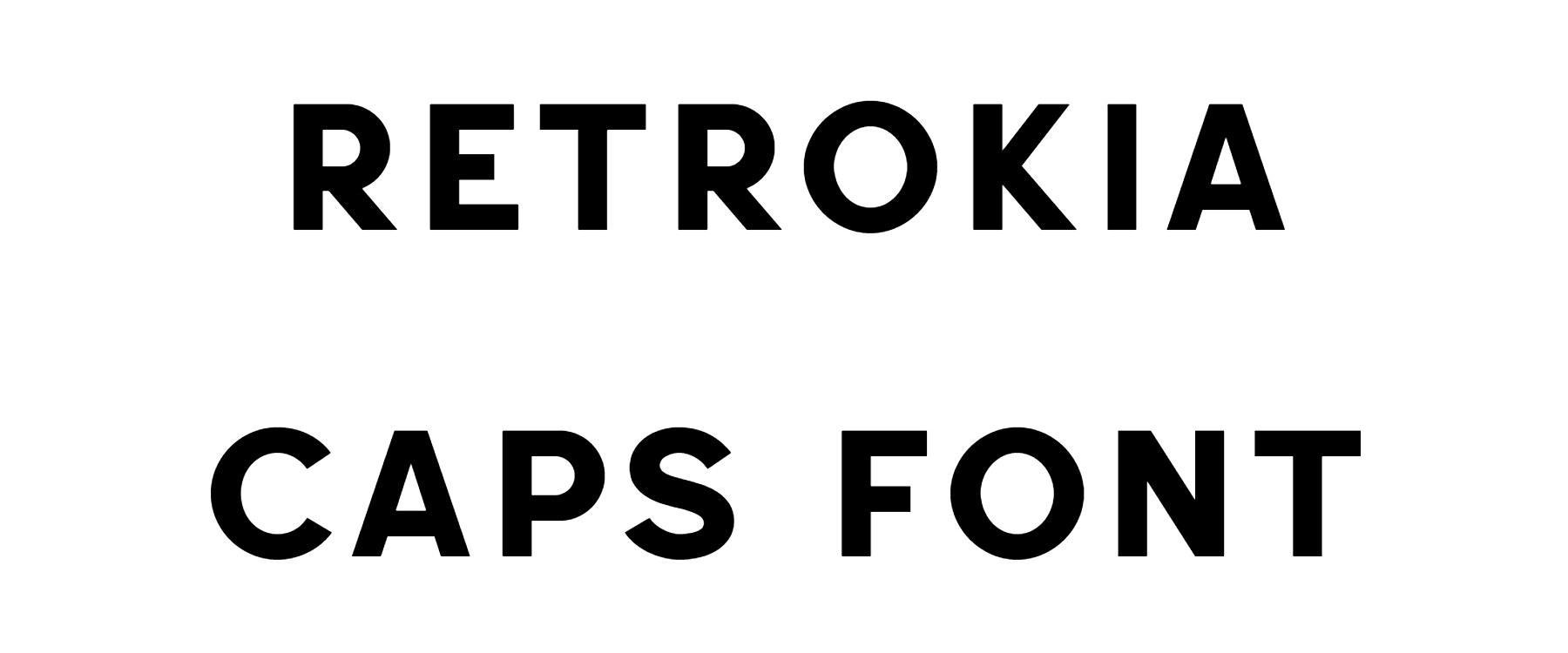
Retrokia Caps
Retrokia Caps is a sans serif font created by Edi Gunawan and released through Edignwn Type (2021). Simple, open letter shapes keep it easy to read at almost any size, from app buttons to big headlines. It's a free download, and you can try it with your own text in the preview above first.
What You Can Type With Retrokia Caps
Retrokia Caps covers the full alphabet in upper and lowercase, plus all ten numbers, so you can set names, dates and prices without switching fonts. Common punctuation such as &, !, ? and @ is included as well. It has 1 accented letters, but not the full set for Spanish or French, so test any non-English words first.
Where Retrokia Caps Works Best
Designers usually reach for fonts like Retrokia Caps when they're making websites, app screens and clean logos. It works for headings and body text alike. If the download has several weights, use a heavier one for titles and a lighter one for paragraphs.